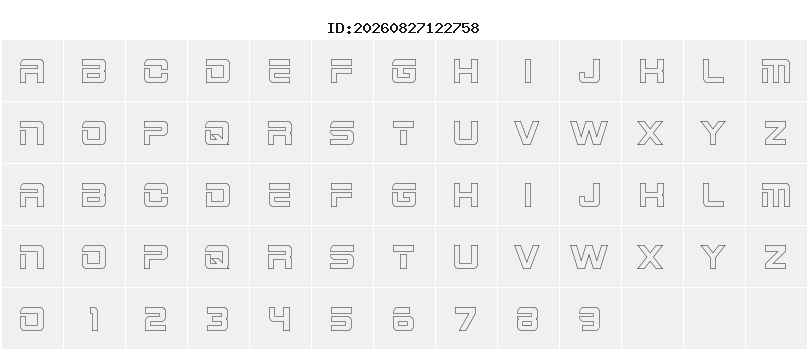
2015 Cruiser Hollow Preview
• Font Name: 2015 Cruiser Hollow
• Designer: Neale Davidson
About 2015 Cruiser Hollow.ttf
2015 Cruiser Hollow.ttf is a modern, elegant sans-serif font designed for ultimate readability and visual harmony. Perfect for branding, headlines, web design, and print materials.